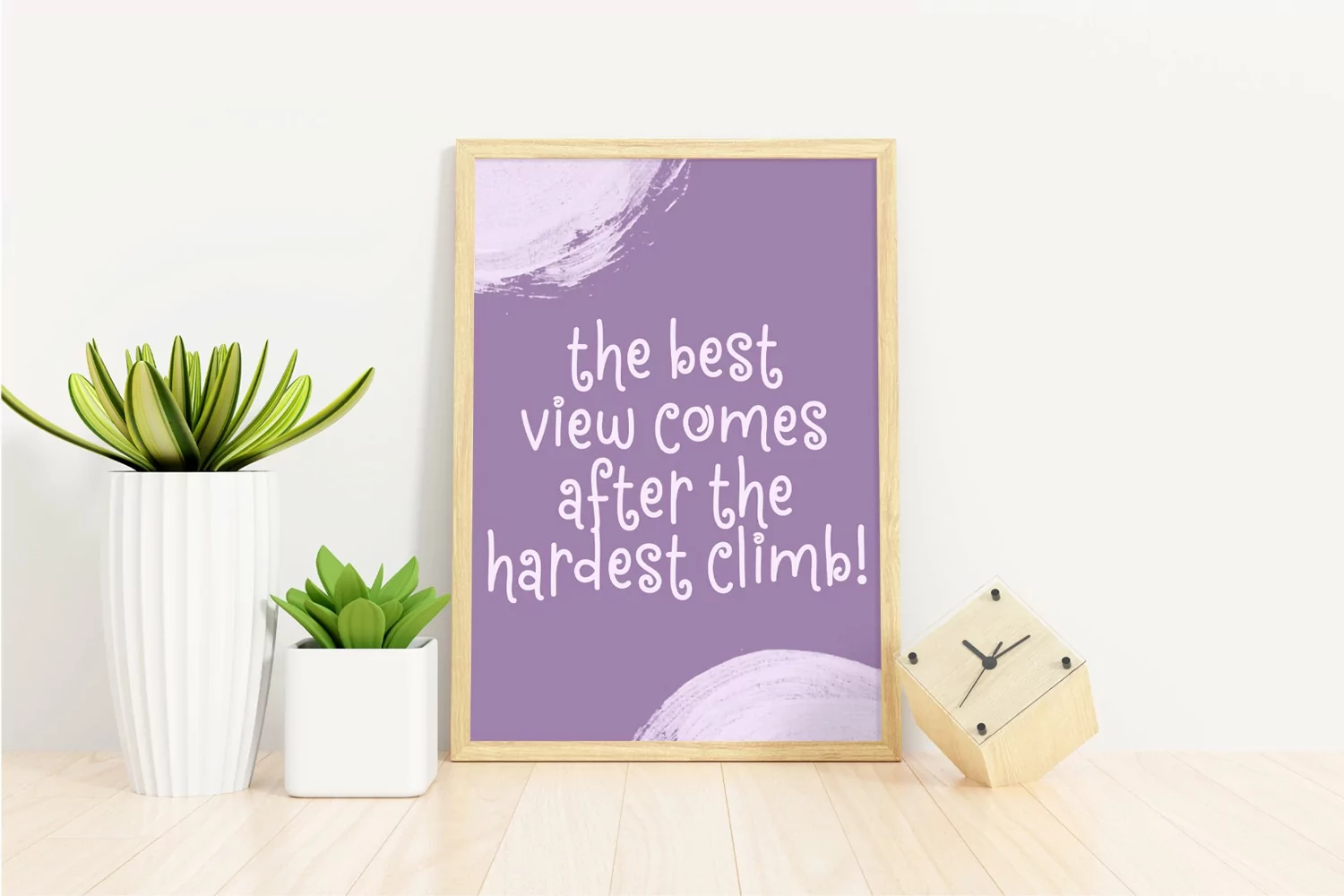
Jonas is a handwritten script font. Perfect for display, poster, quotes, film, craft needs, book cover, business card, packaging, merchandise, branding, logo, logotype, header, title, and many more.